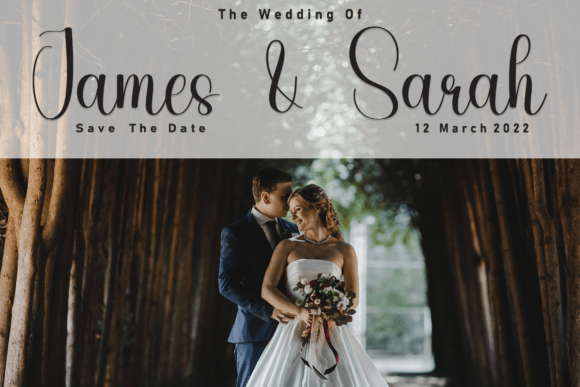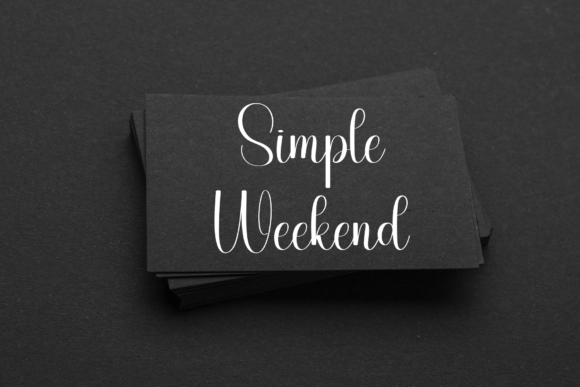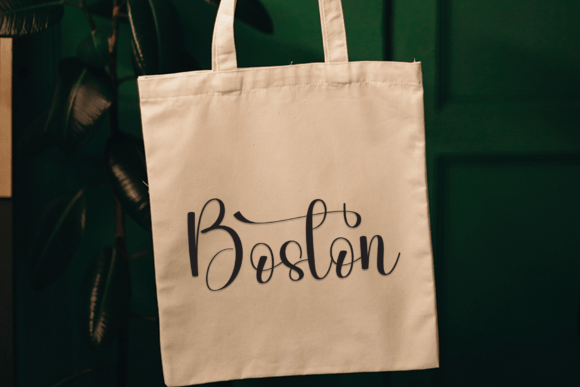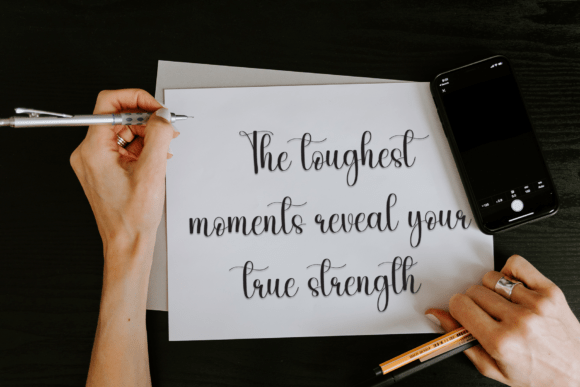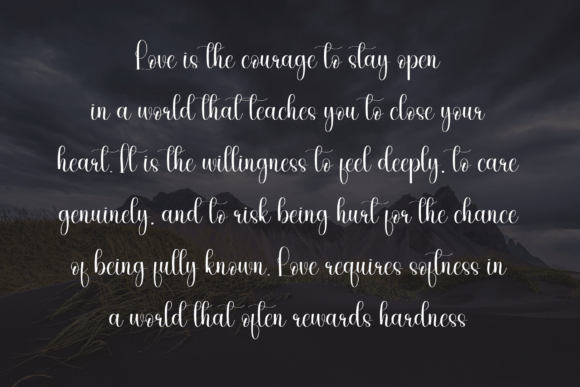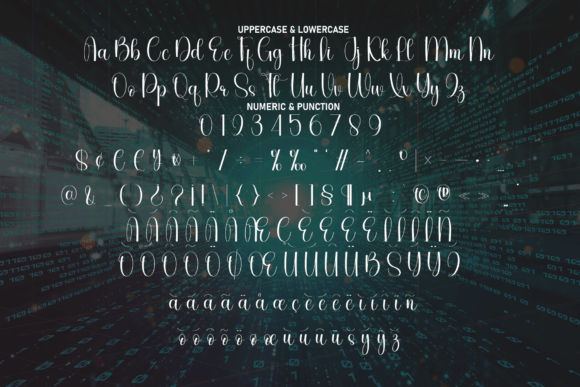
Introducing Digitaly Font: Unleash Your Creativity with a Captivating Handwritten Display
Are you a designer, crafter, or creative enthusiast looking for a font that can add a touch of magic to your projects? Look no further than Digitaly Font, a captivating handwritten display font that is sure to take your designs to new heights. With its spellbinding allure and endearing distinctions, this fanciful typeface is the perfect choice for anyone looking to infuse their creations with a sense of joy and whimsy.
The Perfect Font for Creative Projects
Digitaly Font is more than just a font – it’s an experience. Its affable personality breathes vivacity into every creation, making each design irresistibly captivating. Whether you’re designing a wedding invitation, a greeting card, or any other artistic project, this delightful font is sure to make the process an absolute pleasure.
One of the standout features of Digitaly Font is its unique ability to evoke a sense of joy and playfulness. Its handwritten style is reminiscent of a bygone era, yet it still manages to feel fresh and modern. This makes it the perfect choice for designers and crafters who want to add a touch of personality to their work.
With Digitaly Font, the design possibilities are endless. Imagine creating a stunning wedding invitation that sets the tone for a magical day, or a heartfelt greeting card that speaks directly to the recipient’s soul. This font can be used for a wide range of projects, including:
- Artistic projects, such as illustrations and paintings
Why Choose Digitaly Font?
So why choose Digitaly Font over other fonts on the market? Here are just a few reasons:
- Unique and eye-catching design: Digitaly Font has a distinctive style that is sure to grab attention and leave a lasting impression.
- Versatile: Digitaly Font can be used for a wide range of projects, from formal to informal.
- High-quality: This font is of exceptionally high quality, ensuring that your designs look professional and polished.
Tips for Using Digitaly Font
Here are a few tips for getting the most out of Digitaly Font:
- Experiment with different colors and textures: Digitaly Font looks amazing in a variety of colors and textures, so don’t be afraid to get creative.
- Pair it with other fonts: This font pairs well with a range of other fonts, so try experimenting with different combinations.
- Use it to add personality to your designs: Digitaly Font is all about adding a touch of personality to your designs, so don’t be afraid to let your creativity shine.